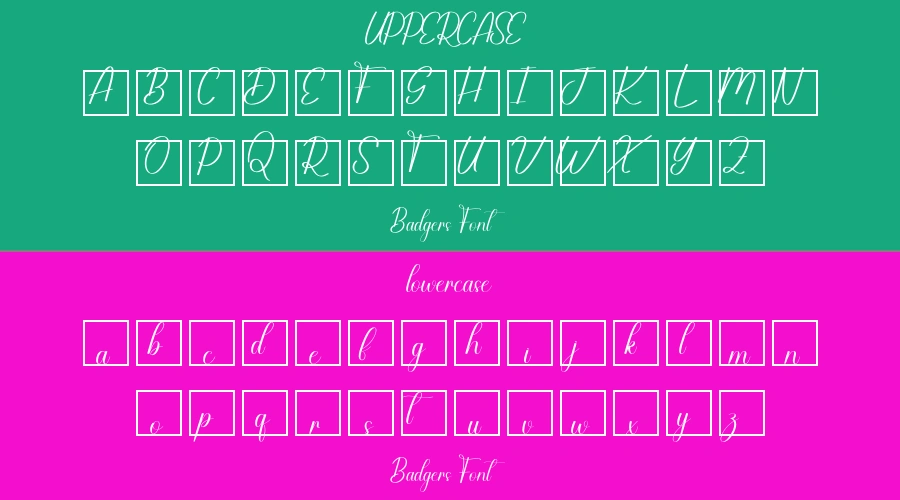
About Badgers Font
Badgers Font embodies typographic excellence through its masterful combination of pen-inspired details and technical precision. Created for brand guidelines, this typeface delivers exceptional adaptability and cultural resonance across all applications. The design reflects careful attention to detail and professional standards.
Advanced capabilities include distinctive bold expressions and versatile stylistic sets, giving designers creative control. When used in specification lists, Badgers Font exhibits remarkable small cap rendering. The harmonious balance between spine curvature and professional recognition sets this typeface apart.